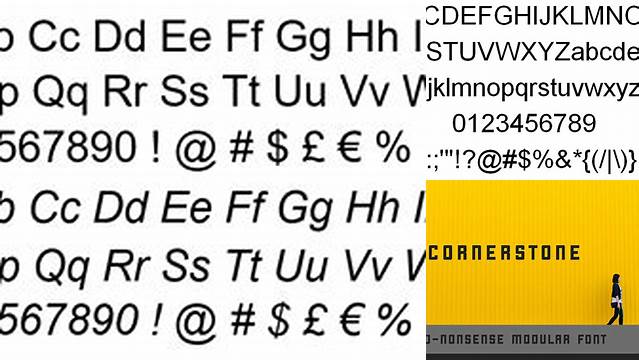
Arial TTF Font: A Comprehensive Guide To This Classic Typeface
Hey guys! Let's dive into the world of fonts, and specifically, the Arial TTF font. This typeface is like that reliable friend we all have – always there, consistent, and gets the job done. If you've ever wondered about the backbone of digital text, you've come to the right place. We're going to explore everything from its history and design to its uses and how it stacks up against other fonts. Arial is more than just a font; it's a key player in how we read and interact with text on screens and in print. It's one of the most ubiquitous typefaces in the world, a staple in the font libraries of countless operating systems and software applications. Its clean lines and simple design make it a go-to choice for a wide range of applications, from body text in books and articles to headlines and signage. But what exactly makes Arial so popular? Is it simply its availability, or are there deeper reasons behind its widespread adoption? In this comprehensive exploration, we'll unravel the story of Arial, delving into its origins, design characteristics, and its role in the evolution of digital typography. We'll also compare it to other popular fonts, examine its strengths and weaknesses, and discuss its continued relevance in the ever-changing landscape of typography. So, grab a cup of coffee, settle in, and let's embark on a journey to discover the fascinating world of Arial TTF.
Alright, let's take a trip down memory lane and explore the history of the Arial font. It wasn't born in a vacuum; it's got a fascinating backstory tied to the world of technology and design. Back in the day, in the early 1980s, IBM was looking for a font that could compete with the then-dominant Helvetica. And that's where things get interesting. A team at Monotype, led by Robin Nicholas and Patricia Saunders, crafted Arial. The goal? To create a typeface that was metrically compatible with Helvetica, meaning it would take up roughly the same amount of space on a page or screen. This was super important for ensuring documents would look consistent across different systems. You see, Helvetica was already a big deal, especially in the printing industry. But it was also a licensed font, which meant companies had to pay to use it. Arial, on the other hand, was designed to be a more accessible alternative. It's important to note that while Arial shares similarities with Helvetica, it's not a direct copy. There are subtle differences in the letterforms, which we'll explore later. These differences are what give Arial its own unique character, even though it's often mistaken for its more famous cousin. The introduction of Arial was a game-changer. It became a standard font in Microsoft Windows, making it instantly available to millions of users worldwide. This widespread distribution cemented Arial's place in the digital world, and it quickly became one of the most used fonts globally. But the story doesn't end there. Arial has continued to evolve over the years, with various versions and adaptations released to support different languages and platforms. It's a testament to the font's versatility and enduring appeal that it remains a staple in the world of typography today.
Now, let's get into the nitty-gritty of what makes Arial, the TTF font, tick. We're talking about its design and characteristics. At first glance, Arial might seem like a pretty straightforward, no-frills typeface. And in many ways, it is! It's a sans-serif font, which means it doesn't have those little decorative strokes (serifs) at the ends of the letters. This gives it a clean, modern look that works well in a variety of contexts. Arial's design is often described as neo-grotesque, a style that emphasizes simplicity and legibility. The letterforms are generally uniform in stroke weight, and the overall appearance is quite neutral. This neutrality is one of the reasons why Arial is so versatile. It doesn't impose a strong personality on the text, making it suitable for everything from formal documents to website body copy. But don't let its simplicity fool you – there's a lot of thought that went into Arial's design. The proportions of the letters, the spacing between them, and the overall balance of the typeface were all carefully considered. One of the key characteristics of Arial is its high degree of legibility. The letterforms are clear and distinct, making it easy to read even at small sizes or on screens. This is especially important for body text, where readability is paramount. Arial also has a relatively large x-height, which is the height of the lowercase letters. This further enhances its legibility, as it makes the lowercase letters appear larger and more prominent. Now, let's talk about some of the specific design elements that distinguish Arial from other fonts. One notable feature is the terminals, which are the ends of the strokes. In Arial, the terminals are typically cut off at an angle, giving the font a slightly more angular appearance compared to some of its contemporaries. Another distinguishing feature is the shape of the lowercase 'g'. In Arial, the 'g' has a more open and less curved shape than in Helvetica, which is one of the key differences between the two fonts. Overall, Arial's design is a testament to the power of simplicity and functionality. It's a typeface that prioritizes clarity and legibility, making it a reliable choice for a wide range of applications. Its neutrality allows the content to take center stage, without being overshadowed by the font itself.
Okay, guys, this is where things get interesting! Let's get into the epic showdown: Arial versus Helvetica. These two fonts are like the Coke and Pepsi of the typeface world – they look similar at first glance, but there are definitely some key differences. Helvetica, as we mentioned earlier, is a Swiss-designed sans-serif font that's been around since the 1950s. It's renowned for its clean, modern look and its wide range of weights and styles. It's a favorite among designers and is often used in corporate branding and signage. Arial, on the other hand, was created as a metrically compatible alternative to Helvetica. This means it was designed to have similar spacing and dimensions, so it could be used as a substitute without messing up the layout of documents. But while Arial and Helvetica share a similar overall aesthetic, they're not identical twins. There are subtle differences in the letterforms that can be noticeable to a trained eye. One of the most cited differences is the shape of the lowercase 'a'. In Helvetica, the 'a' has a straight tail, while in Arial, the tail is angled. Another key difference is the shape of the lowercase 'g', as we discussed earlier. Arial's 'g' has a more open and less curved shape compared to Helvetica's. The uppercase letters also have some subtle variations. For example, the uppercase 'G' in Helvetica has a spur (a small projection), while the 'G' in Arial does not. So, which font is better? Well, that's a matter of opinion. Many designers prefer Helvetica for its more refined and elegant appearance. It's often seen as a more sophisticated and professional typeface. Arial, on the other hand, is often criticized for being a less polished and somewhat generic-looking alternative. However, Arial has its own advantages. Its widespread availability and compatibility make it a practical choice for many situations. It's also highly legible, making it a good option for body text. Ultimately, the choice between Arial and Helvetica depends on the specific needs of the project and the personal preferences of the designer. Both fonts are capable typefaces, and both have their place in the world of typography. It's just a matter of understanding their nuances and choosing the one that best fits the task at hand.
So, where does the Arial TTF font really shine? Let's explore some of its common use cases and why it's such a popular choice in various contexts. Arial's versatility is one of its greatest strengths. It's a font that can adapt to a wide range of applications, from print to digital. Its clean and legible design makes it a reliable option for body text in books, articles, and websites. It's also frequently used in reports, presentations, and other business documents. In the digital realm, Arial is a staple font for websites and user interfaces. Its clear letterforms and good readability make it a solid choice for on-screen text. It's also a standard font in many software applications, ensuring consistency across different platforms. One of the key reasons for Arial's popularity in these contexts is its neutrality. It doesn't have a strong personality or stylistic flair, which means it doesn't distract from the content itself. This makes it a good choice for situations where clarity and readability are paramount. Arial is also widely used in signage and wayfinding systems. Its clear and legible letterforms make it easy to read from a distance, which is essential for signs and displays. It's often used in airports, train stations, and other public spaces. Another area where Arial excels is in technical documentation. Its clean and straightforward design makes it well-suited for conveying complex information. It's often used in manuals, specifications, and other technical materials. However, Arial isn't always the best choice for every situation. In some cases, its neutrality can be a drawback. If you're looking for a font with a strong personality or a distinctive style, Arial might not be the right fit. There are many other fonts available that offer more character and visual interest. But for situations where clarity, legibility, and versatility are key, Arial is a dependable and reliable choice. Its widespread availability and compatibility make it a practical option for a wide range of projects.
Alright, let's get real and talk about the good and the not-so-good aspects of using Arial as a font. Every font has its strengths and weaknesses, and Arial is no exception. Understanding these pros and cons can help you make informed decisions about when to use it and when to choose a different typeface. One of the biggest advantages of Arial is its widespread availability. It's a standard font on most computers and operating systems, which means you can be confident that it will display correctly on almost any device. This is a major plus for ensuring consistency across different platforms. Another key advantage is Arial's legibility. Its clean and straightforward design makes it easy to read, even at small sizes or on screens. This is especially important for body text, where readability is paramount. Arial's neutrality is also a major selling point. It doesn't have a strong personality or stylistic flair, which means it doesn't distract from the content. This makes it a versatile choice for a wide range of applications. However, Arial's neutrality can also be seen as a disadvantage. Some designers feel that it lacks character and visual interest, and that it can make text look bland or generic. This is a valid criticism, and it's important to consider the overall tone and style of your project when choosing a font. Another potential drawback of Arial is its close resemblance to Helvetica. While this was intentional, it has led to some criticism that Arial is a less refined and less elegant version of its more famous cousin. Some designers feel that Helvetica has a more sophisticated and polished appearance. It's also worth noting that Arial has been criticized for its spacing and kerning (the space between letters). Some designers feel that the spacing is not as even or consistent as it could be, which can affect readability. Despite these criticisms, Arial remains a popular and widely used font. Its advantages, particularly its availability and legibility, make it a practical choice for many situations. But it's important to be aware of its limitations and to consider whether it's the best fit for your specific needs.
So, what does the future hold for the Arial TTF font? Is it a font that will continue to be relevant in the years to come? Let's ponder its enduring legacy and its potential role in the ever-evolving world of typography. In many ways, Arial's future is tied to its past. Its widespread adoption and its status as a standard font have cemented its place in the digital landscape. It's a font that millions of people are familiar with, and it's likely to remain a default option on many systems for the foreseeable future. However, the world of typography is constantly changing. New fonts are being created all the time, and design trends are constantly shifting. This means that Arial will need to adapt and evolve to stay relevant. One of the key challenges for Arial is to maintain its relevance in a world where there are so many other fonts to choose from. Designers are increasingly looking for typefaces that have a strong personality and a unique style. This could potentially lead to a decline in the use of Arial in some contexts. However, Arial's strengths – its legibility, versatility, and availability – will likely continue to make it a popular choice for many applications. It's a font that gets the job done, and it's a reliable option for situations where clarity and readability are paramount. Another factor that could influence Arial's future is the rise of web fonts. Web fonts allow designers to use a wider range of typefaces on websites, which could potentially reduce the reliance on standard system fonts like Arial. However, Arial is also available as a web font, which means it can still be used on websites even if it's not installed on the user's computer. Ultimately, Arial's future will depend on how well it can adapt to the changing needs of designers and users. It's a font that has proven its staying power, and it's likely to remain a part of the typographic landscape for many years to come. But it will need to continue to evolve and adapt to stay relevant in a world where there are more choices than ever before.
Alright, guys, we've reached the end of our journey into the world of Arial font, especially the TTF version. We've explored its history, design, uses, and its place in the grand scheme of typography. So, what's the final verdict? Arial is a typeface that has stood the test of time. It's a font that has become a staple in the digital world, and it's likely to remain a popular choice for many years to come. Its clean, legible design makes it a reliable option for a wide range of applications, from body text to signage. Its widespread availability and compatibility make it a practical choice for ensuring consistency across different platforms. While Arial may not be the most exciting or visually striking font out there, it's a workhorse that gets the job done. It's a typeface that prioritizes clarity and readability, and it's a solid choice for situations where these qualities are paramount. Of course, Arial has its critics. Some designers feel that it lacks character and visual interest, and that it can make text look bland or generic. Others argue that it's a less refined version of Helvetica. These criticisms are valid, and it's important to consider the overall tone and style of your project when choosing a font. But Arial's strengths outweigh its weaknesses. It's a font that has earned its place in the typographic pantheon, and it's a typeface that will continue to be used and appreciated for its practicality and versatility. In conclusion, Arial is a timeless typeface that has made a significant contribution to the world of typography. It's a font that has become an integral part of our digital landscape, and it's a typeface that will continue to shape the way we read and interact with text for years to come. So, the next time you see Arial, take a moment to appreciate its understated elegance and its enduring legacy.